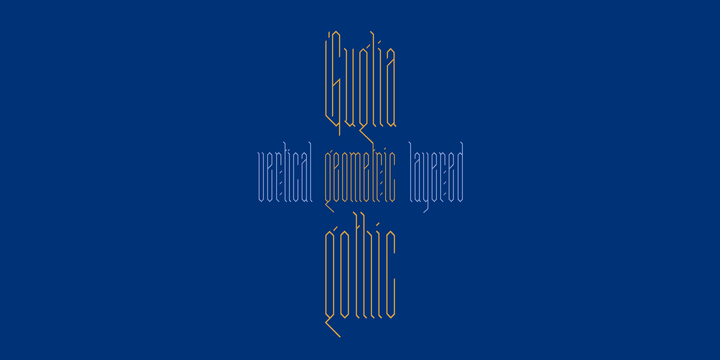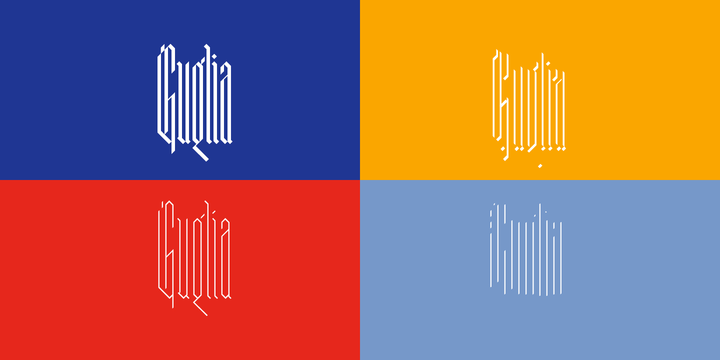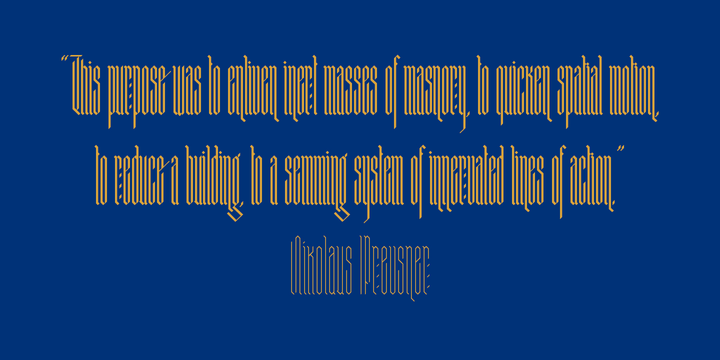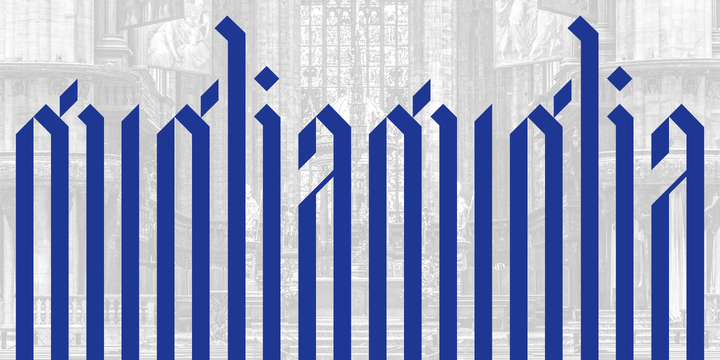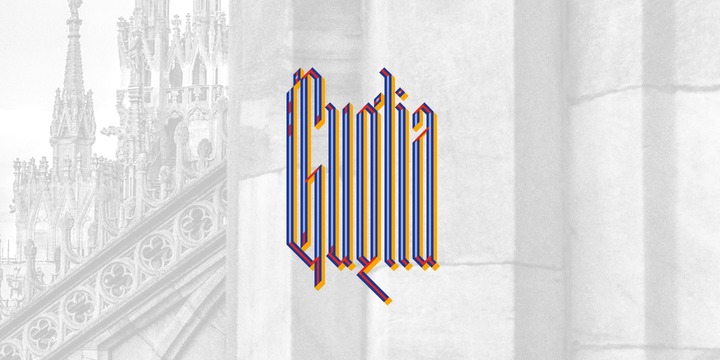
Guglia is an extra textura typeface ispired by the gothic architecture shapes and in particular to his vertical extremization based on a rigid scheme, like the calligraphy of that period.
A spire (Guglia in italian) is a tapering conical or pyramidal structure on the top of a building, often a skyscraper or a church tower.